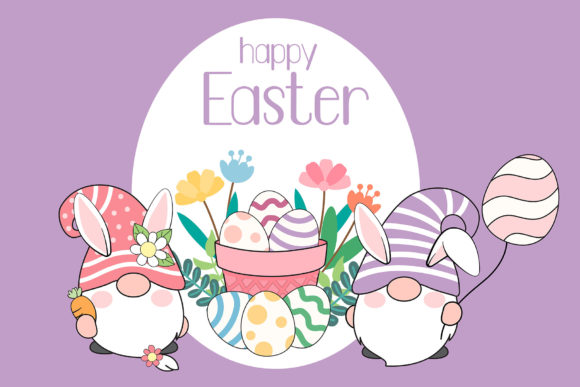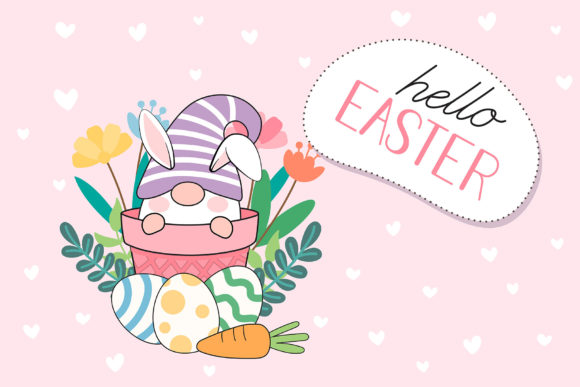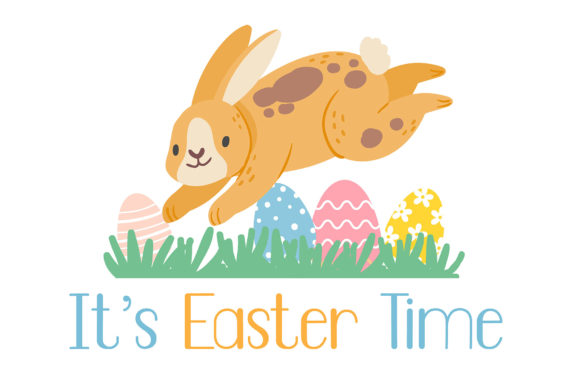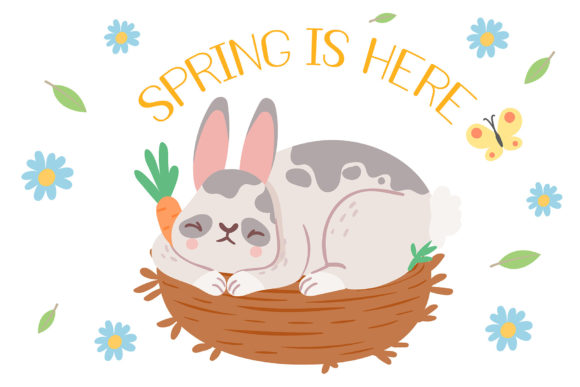
The Easter Gnome Font: A Cool and Modern Display Font to Elevate Your Creations
I’ll never forget the time I was working on a project for a client who needed a unique and eye-catching font to make their brand stand out. I spent hours scouring the internet for the perfect font, but nothing seemed quite right. That was until I stumbled upon the Easter Gnome font. With its modern and cool display style, I knew I had found the perfect fit. In this article, I’ll share my experience with the Easter Gnome font, its features, and how to make the most of it in your designs.
An Honest Review of Easter Gnome Font
The Easter Gnome font has quickly become a favorite in my font library, and for good reason. Here are some things I love about it:
- ✨ Unique and eye-catching design: The Easter Gnome font has a distinctive style that’s sure to grab attention.
- ✅ Highly versatile: Whether you’re working on a project for Easter, a spring-themed design, or just want a modern font to add some flair, Easter Gnome is a great choice.
- ✅ Easy to read: Despite its unique design, the Easter Gnome font is surprisingly easy to read, even at smaller sizes.
Of course, no font is perfect, and there are a few small quirks to be aware of:
- 🤔 Limited use for body text: While Easter Gnome is great for headlines and titles, it’s not the best choice for body text due to its display-focused design.
- ⚠️ Some glyphs may require manual adjustment: Depending on the platform you’re using, you may need to manually adjust some glyphs to get the best results.
- Experiment with OpenType features like ligatures and stylistic alternates to add some extra flair to your design.
- Take advantage of OpenType features like glyphs and stylistic alternates to customize your text.
The Backstory of Easter Gnome Font
The Easter Gnome font was designed with the intention of creating a unique and modern display font that would be perfect for Easter and spring-themed designs. The designer wanted to create a font that was both fun and elegant, with a touch of whimsy. The result is a font that’s sure to add a smile to anyone’s face.
| What is the Easter Gnome font best used for? | The Easter Gnome font is best used for headlines, titles, and short text passages where you want to add a touch of personality and whimsy. |
| Is the Easter Gnome font suitable for body text? | No, the Easter Gnome font is not recommended for body text due to its display-focused design. |